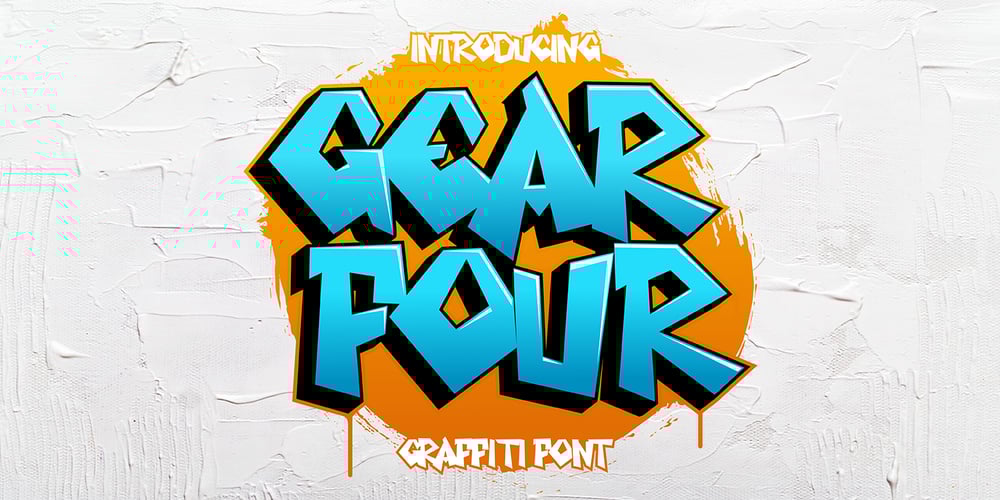
Gear Four Graffiti Font Family was designed by Sipanji and published by Sipanji21. Gear Four Graffiti contains 1 styles and family package options. Gear Four is a spectacular font with a graffiti style for your design look awesome. It will elevate a wide range of design projects to the highest level, be it branding, headings, wedding designs, invitations, signatures, logotype, wall art illustration, apparel, labels, and much more!